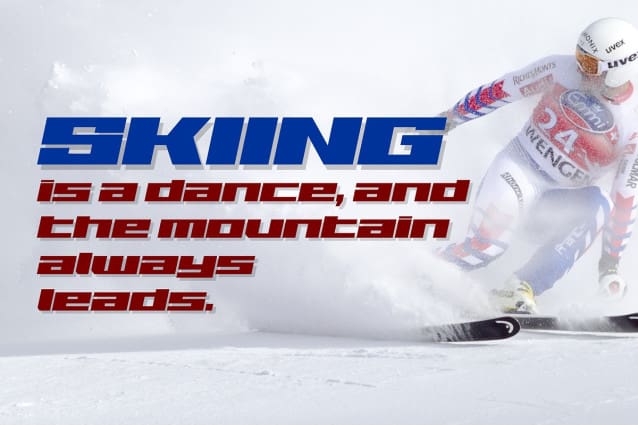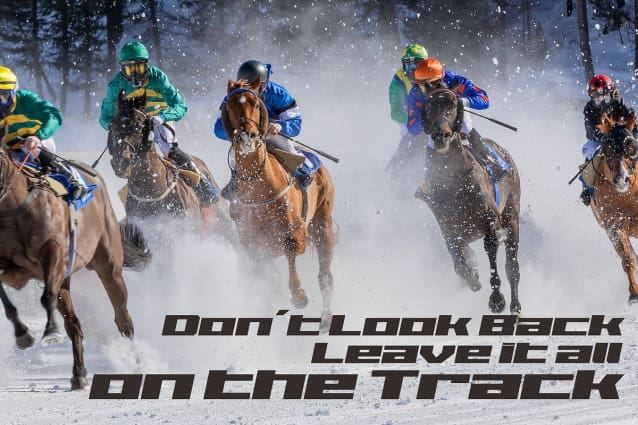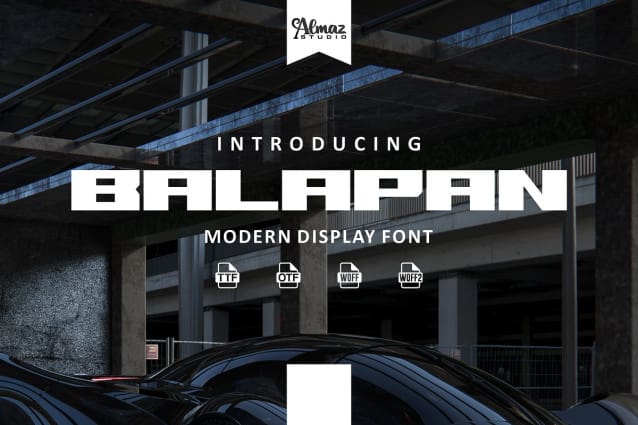
Balapan Font
Balapan Font is a powerful and impactful font style specifically designed to create a bold statement. It is characterized by its heavy strokes, thick lines, and sharp edges, giving it a strong and commanding visual presence. This font style is commonly used in sports-related designs, racing events, and other high-energy visual materials. Balapan Font is a powerful and attention-grabbing font style that exudes strength, speed, and intensity. Its bold strokes and sharp edges make it perfect for sports-related designs and racing events, creating a visual impact that leaves a lasting impression. Despite its aggressive appearance, this font style maintains legibility, making sure that the message it conveys is clear and impactful.